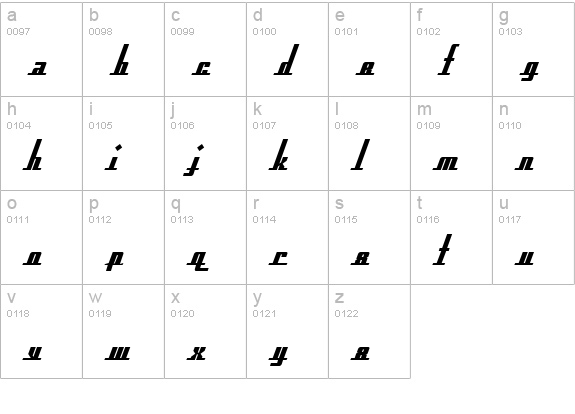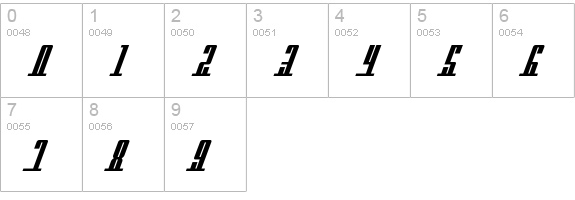
SF Americana Dreams Bold Font Details
SF Americana Dreams Bold is a strong, high-contrast variant in the SF typeface family \xE2\x80\x94 well suited to headlines, attention-grabbing titles, and strong calls-to-action.
SF Americana Dreams Bold is a stunning and captivating font that embodies the essence of the American dream. With its bold and striking letterforms, this font exudes confidence and strength. It is the perfect choice for projects that require a touch of patriotism and a sense of adventure. Designed with meticulous attention to detail, SF Americana Dreams Bold stands out with its unique and timeless style. Its sleek and modern look makes it versatile and suitable for a wide range of design projects, from posters and logos to headlines and branding materials. What sets SF Americana Dreams Bold apart is not just its aesthetic appeal, but also its availability as a free download. That's right, this exceptional font is freely available to download at FontsMarket.com. Whether you're a professional designer or a DIY enthusiast, you can access and utilize this font to bring your ideas to life. With SF Americana Dreams Bold, you have the freedom to explore and create without any limitations. Its bold and impactful presence will grab attention and leave a lasting impression on your audience. So go ahead, download SF Americana Dreams Bold today and unleash your creativity with this remarkable font.